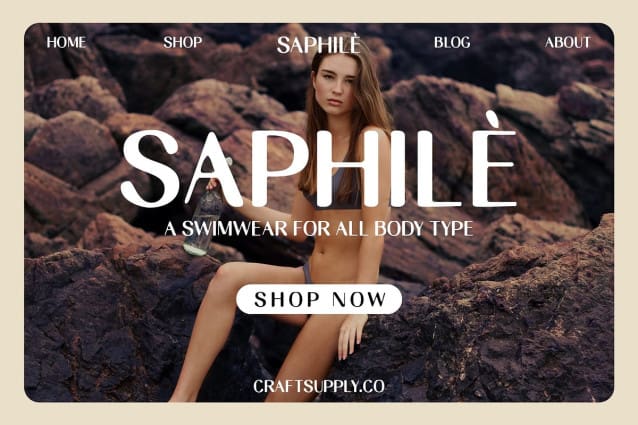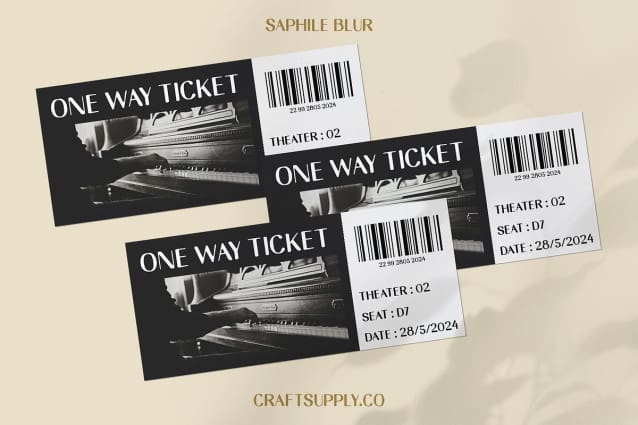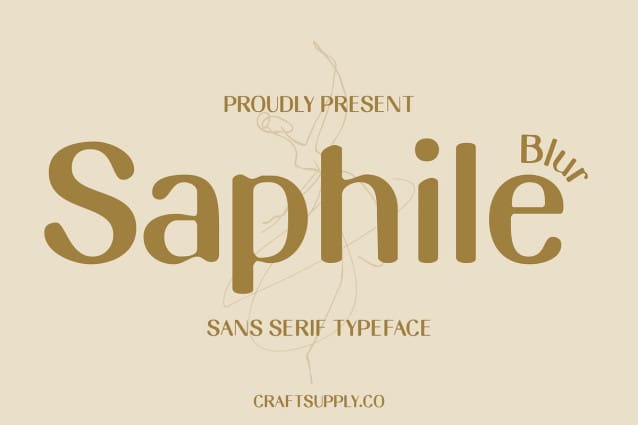
Saphile Blur Font
Saphile Blur Font is a sans-serif font with a retro and elegant look that evokes nostalgia. Featuring a unique blur effect, this font is perfect for creative designs that aim to capture the charm of the past with a modern twist.
With its versatile design, Saphile Blur Font is suitable for a variety of uses, including headlines, posters, and branding. Its retro elegance adds a touch of timeless beauty, while the blur effect introduces a contemporary and artistic flair.
Saphile Blur Font prioritizes nostalgic appeal, ensuring that your designs stand out and resonate with viewers. Whether used in print or digital media, this font adds a dynamic element that captivates and evokes fond memories.
Whether you’re designing a vintage-inspired poster, a stylish website, or unique branding materials, Saphile Blur Font is the perfect choice for projects that require a blend of retro elegance and modern creativity. Its timeless design ensures that your work will always look sophisticated and innovative.